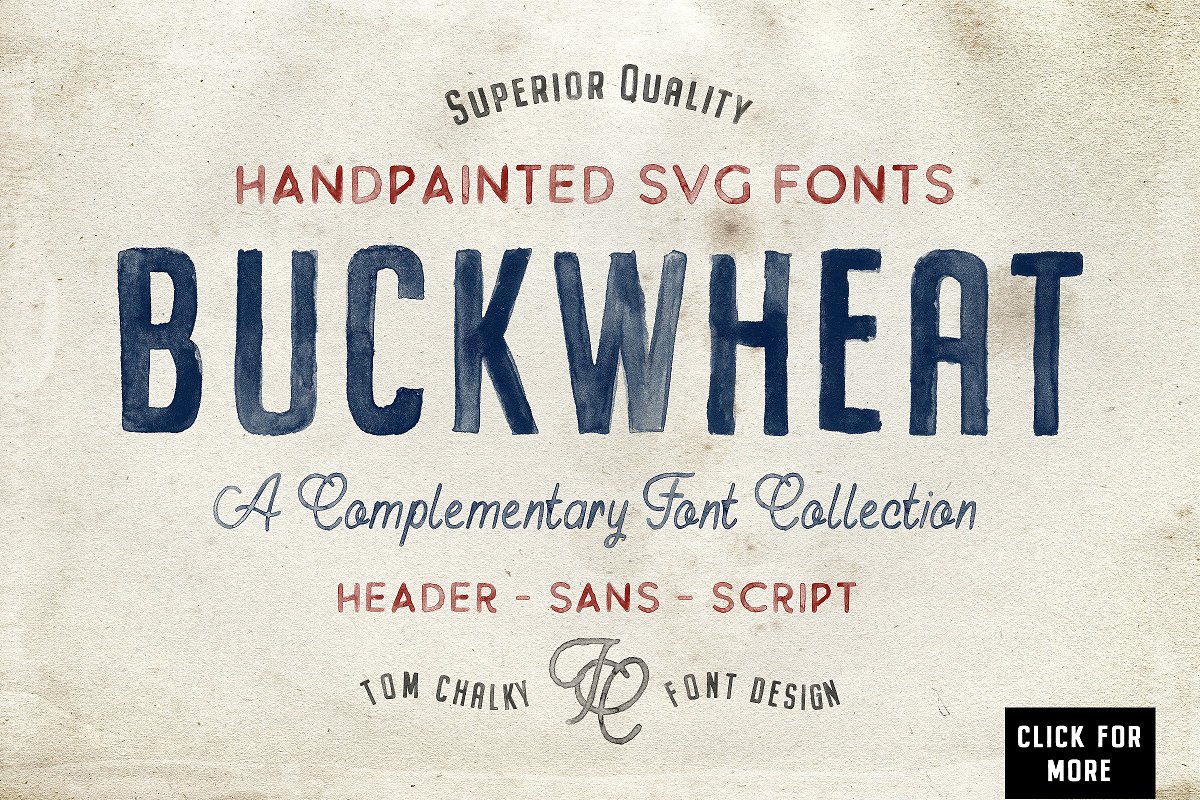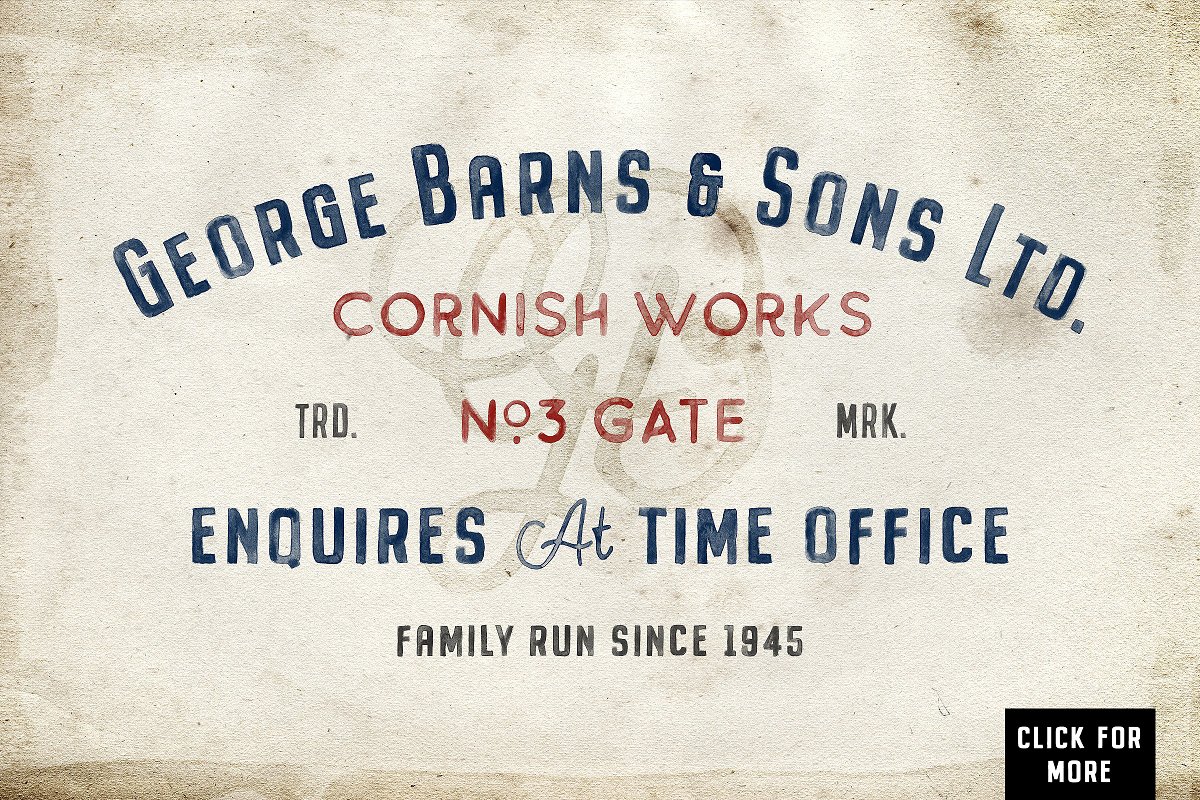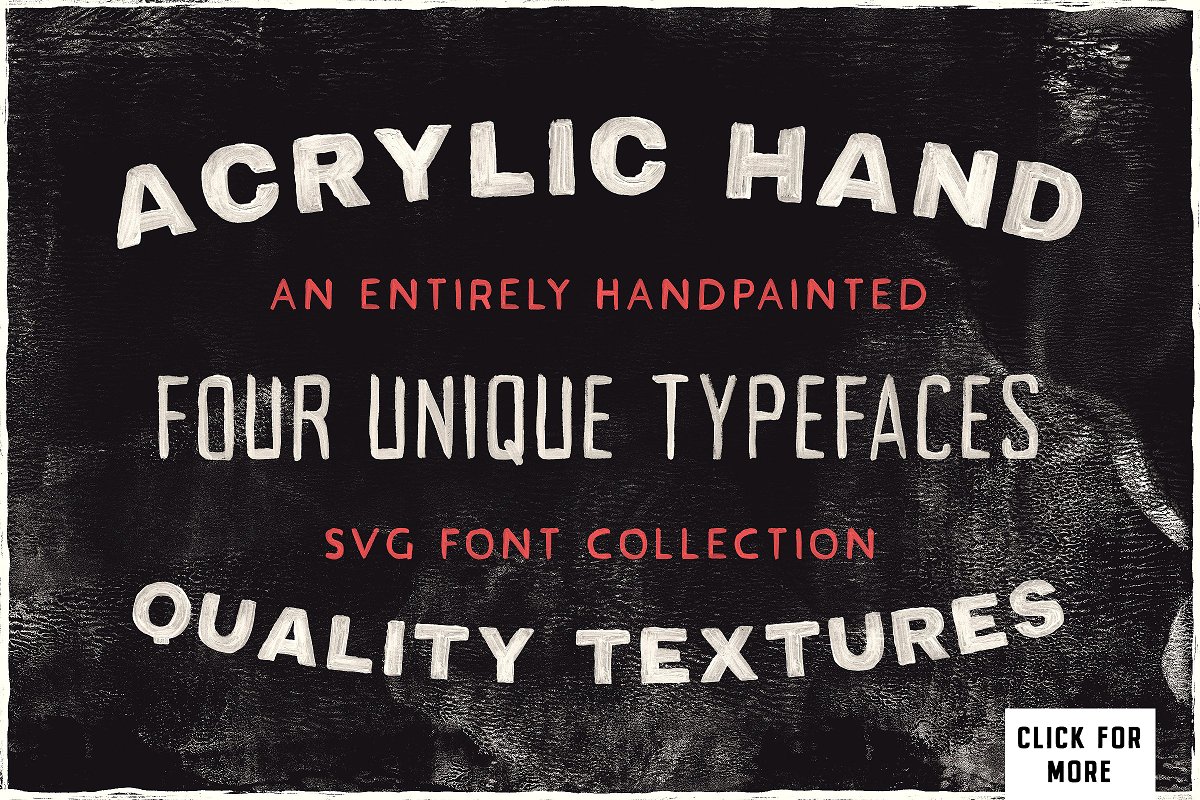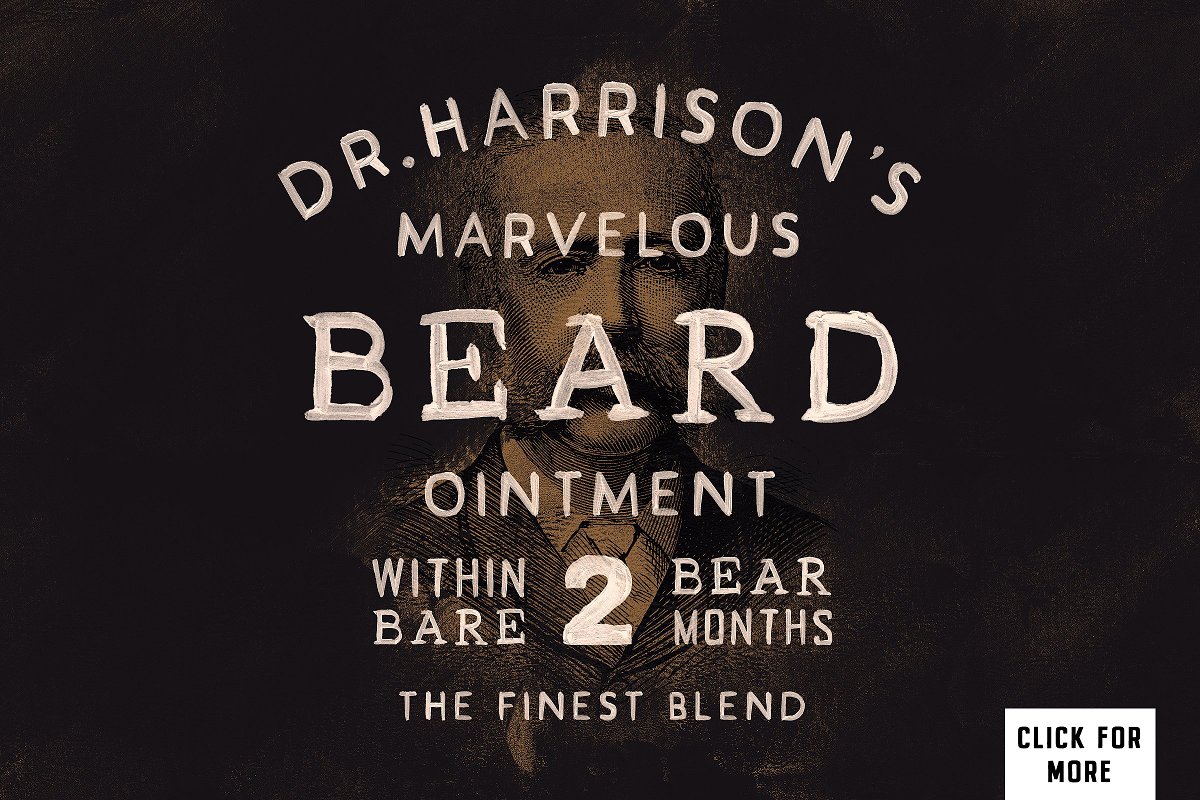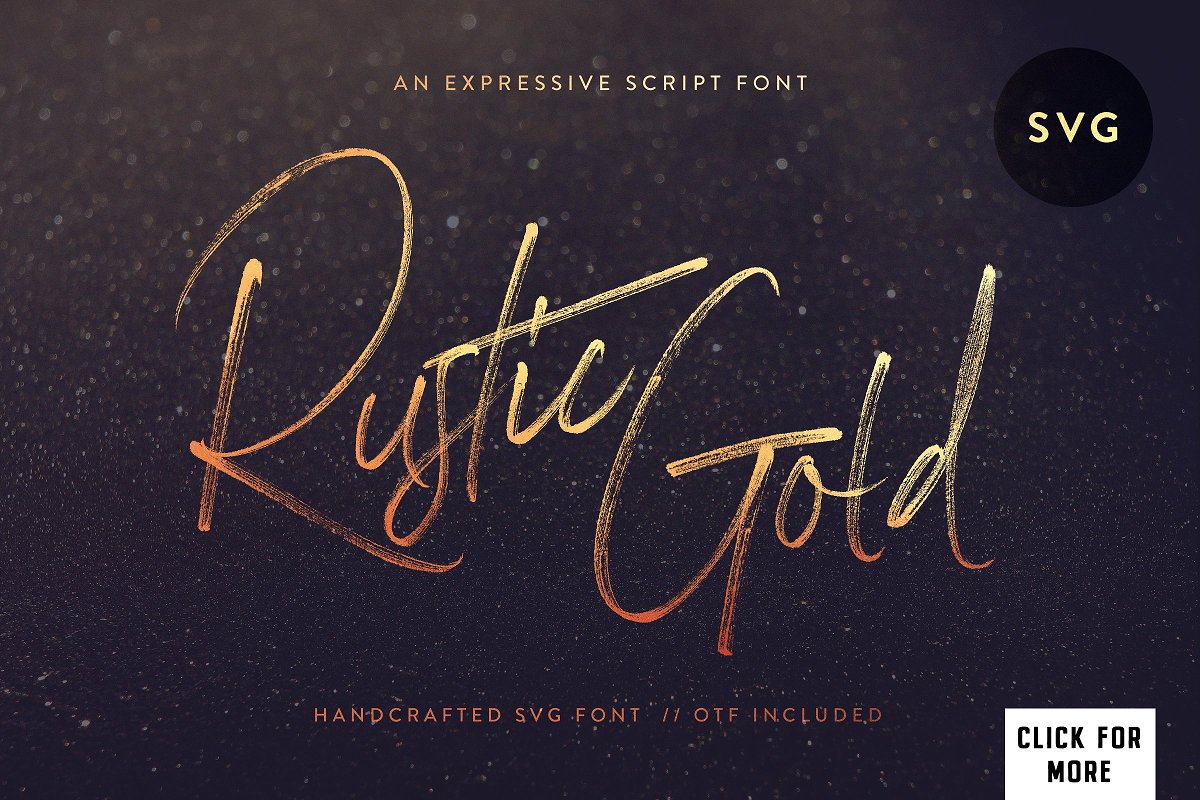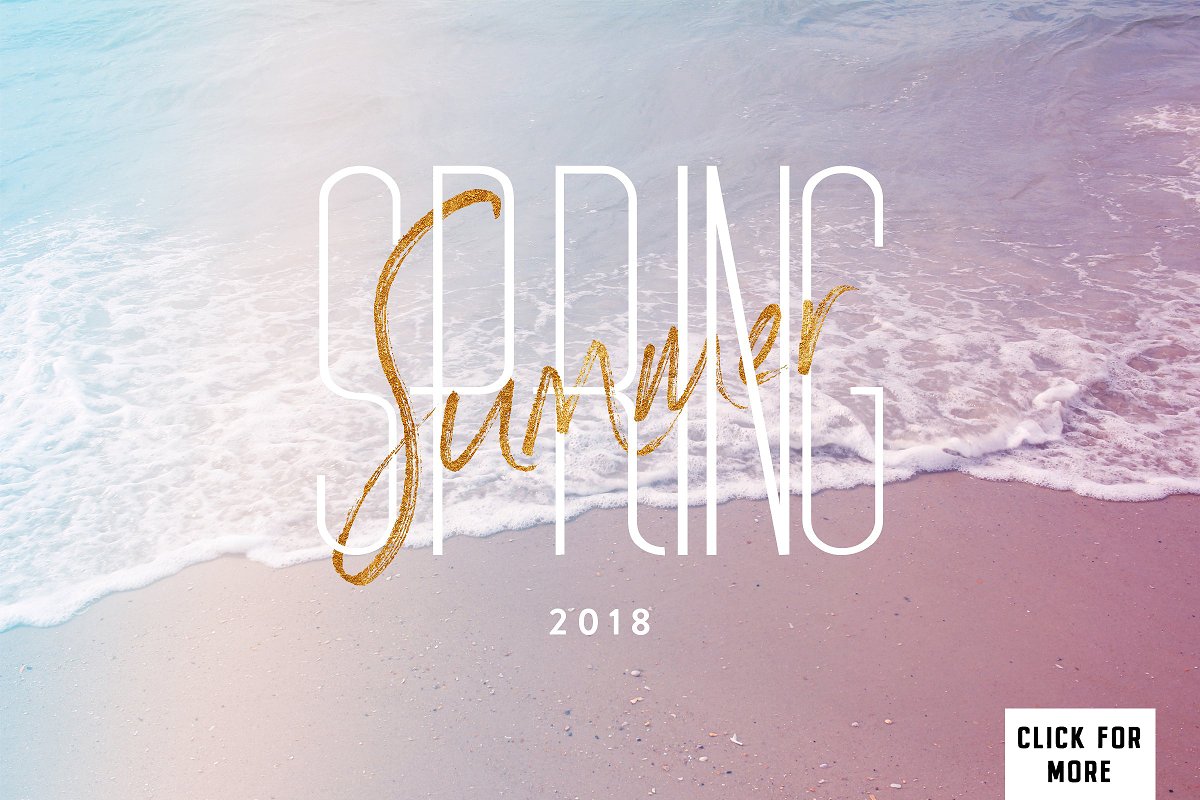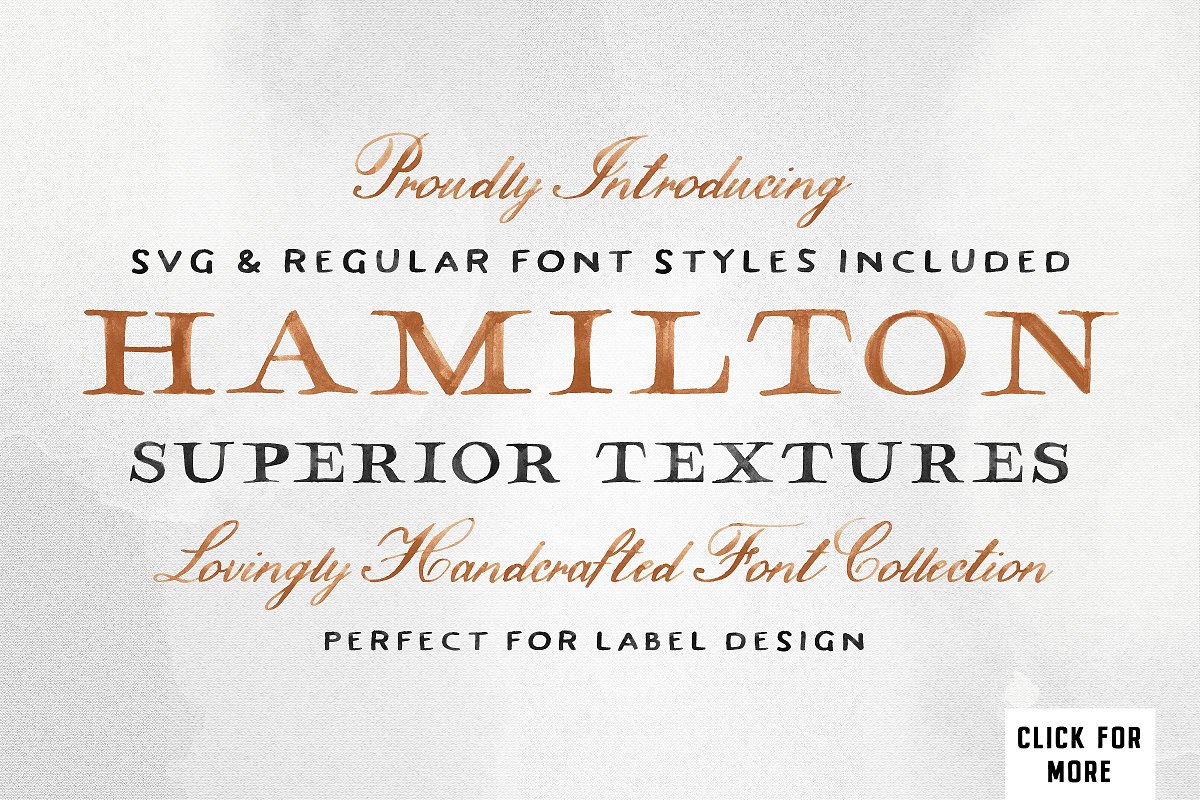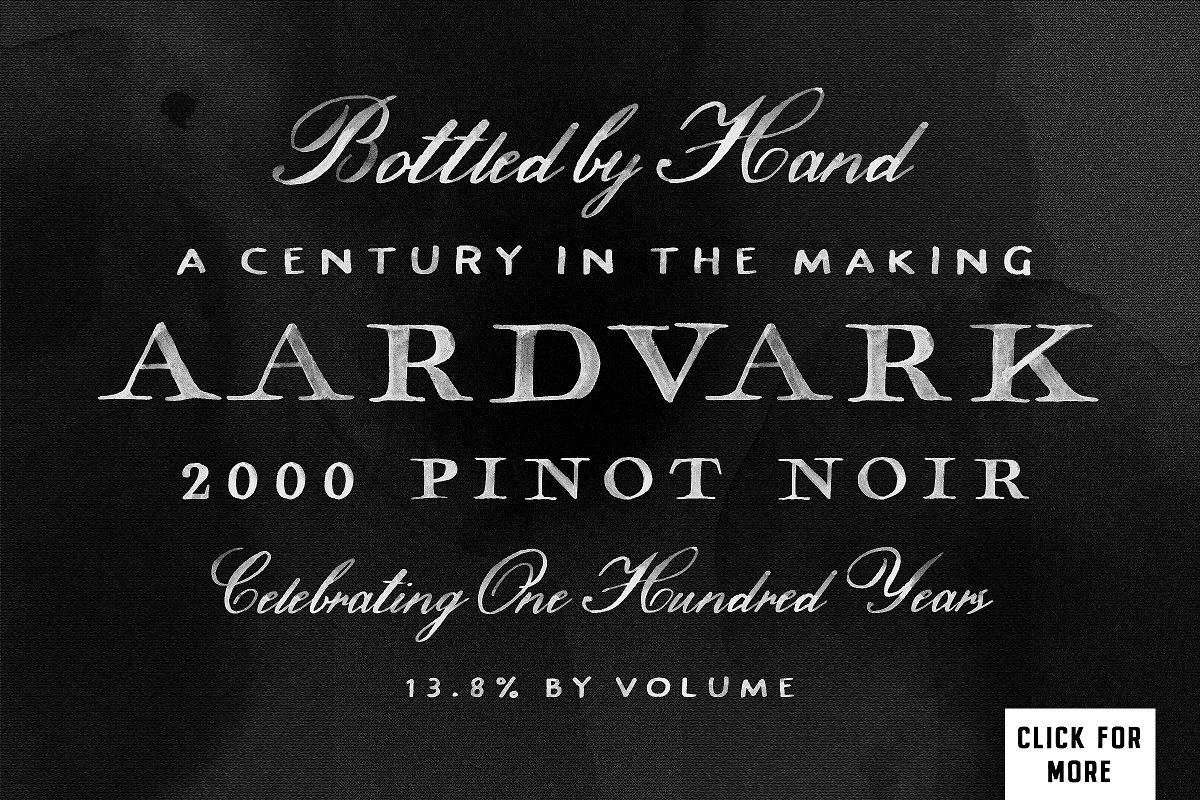
About the The Handcrafted SVG Bundle Font
Introducing The Handcrafted SVG Font Bundle: A versatile and professional collection of high-quality Opentype SVG Fonts with stunningly realistic textures (standard , otf fonts also included!), I’ve bundled together 4 of my best selling SVG font packages with a generous 55% discount, Inside you’ll find 14 SVG fonts, 14 standard fonts, and a super useful selection of high-quality textures! Buying these products individually would cost you $73Put my selection of SVG fonts to work and take full advantage of this fantastic new format by creating realistic type designs that look as if they’ve been painted straight onto the screen
com/RzeVe8 (Usually $19)The Buckwheat SVG font collection includes three unique Opentype SVG fonts featuring an entirely hand-painted, multilingual glyph range with high-quality and authentic textures built in, with zero extra work required! Much like real paint, the textures are transparent, enhancing the overall effect
Acrylic SVG Font Collection: https://crmrkt, com/jVa916 (Usually $19)The Acrylic Hand Font Collection includes four SVG fonts with an entirely hand painted, multilingual glyph range featuring realistic and high-quality textures throughout, The textures are exactly as they appear in the preview images above (no extra work required!)
Rustic Gold SVG Brush Script: https://crmrkt, com/g2kgAo (Usually $16)Introducing Rustic Gold! An expressive Opentype SVG brush script font full of personality and stunning textures, Designed to be versatile, Rustic Gold, can take center stage or be used to beautifully complement your favorite sans and serif fonts
Ideal for a variety of design projects from branding to packaging, from apparel to stationery, and everything in between, Hamilton SVG Font Collection: https://crmrkt, com/pwmeJz (Usually $19)The Hamilton SVG Font Family features a serif, sans serif, and script; each boasting exquisite and hand painted textures throughout
Inspired by vintage maps, wine and whisky labels, Hamilton was designed to be a classy cat perfect for packaging design, logos, invitations and so much more, What the heck are Opentype SVG Fonts?! Opentype SVG is an entirely new font format that functions similarly to standard fonts